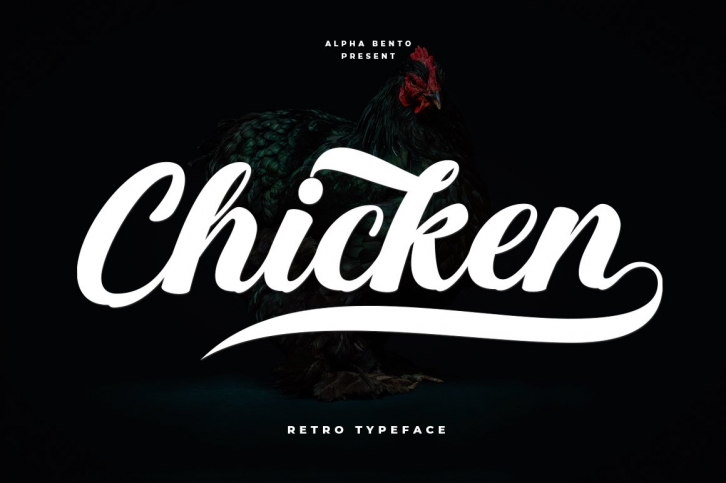
Chicken Script is a great font that was designed by Alpha Bento. Imagine the amount of combinations you can create using this font! The archive is 5.17 MB and it was released on March 17, 2022. Chicken Script looks beautiful on wedding invitations, greeting cards, logos, posters, labels, t-shirt designs, logos, business cards and is perfect for use in ink or watercolor works, fashion, magazines, packaging and food menus, children's books and more!